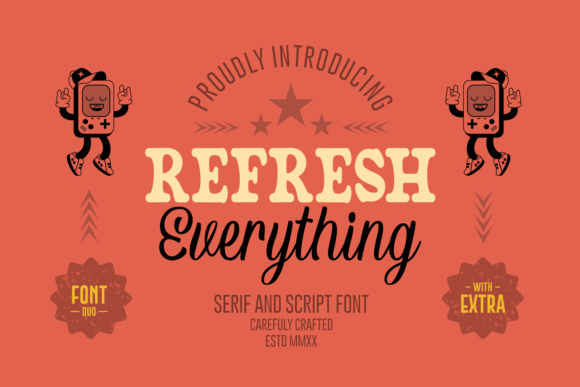
Behold Refresh Everything Font, a mesmerizing script font that will breathe life into your creative projects. Immerse yourself in its enchanting strokes, reminiscent of a gentle breeze caressing a tranquil lake, flowing effortlessly with an organic charm. Let your design speak volumes with this masterpiece, a symphony of elegance and originality. Unleash your imagination and embrace the boundless possibilities that await you.
With Refresh Everything Font, you'll embark on a journey of endless creativity. This modern handwritten font is a versatile chameleon, effortlessly adapting to a multitude of design endeavors. Be it logos, book covers, t-shirt designs, or even the heartfelt strokes of a love letter, Refresh Everything Font will elevate your vision with unparalleled grace. Its intricate details and fluid movement will leave a lasting impression, captivating your audience with its allure.
Picture a logo that dances with energy, a book cover that whispers tales of enchantment, or a t-shirt design that radiates personality. Refresh Everything Font is your artistic compass, guiding you towards a realm of design excellence. Its essence is both timeless and contemporary, a harmonious blend of tradition and modernity. With this font as your ally, you'll effortlessly weave narratives that resonate with hearts and minds, leaving an indelible mark on the world of design.
Embrace Refresh Everything Font and unveil a world of typographic wonders. Its versatility is boundless, its beauty undeniable. Let your creativity flourish, explore uncharted territories of design, and leave your mark on the hearts of those who encounter your creations. Dive into the depths of this font's allure and let your imagination soar. The possibilities are endless, and the journey begins now.